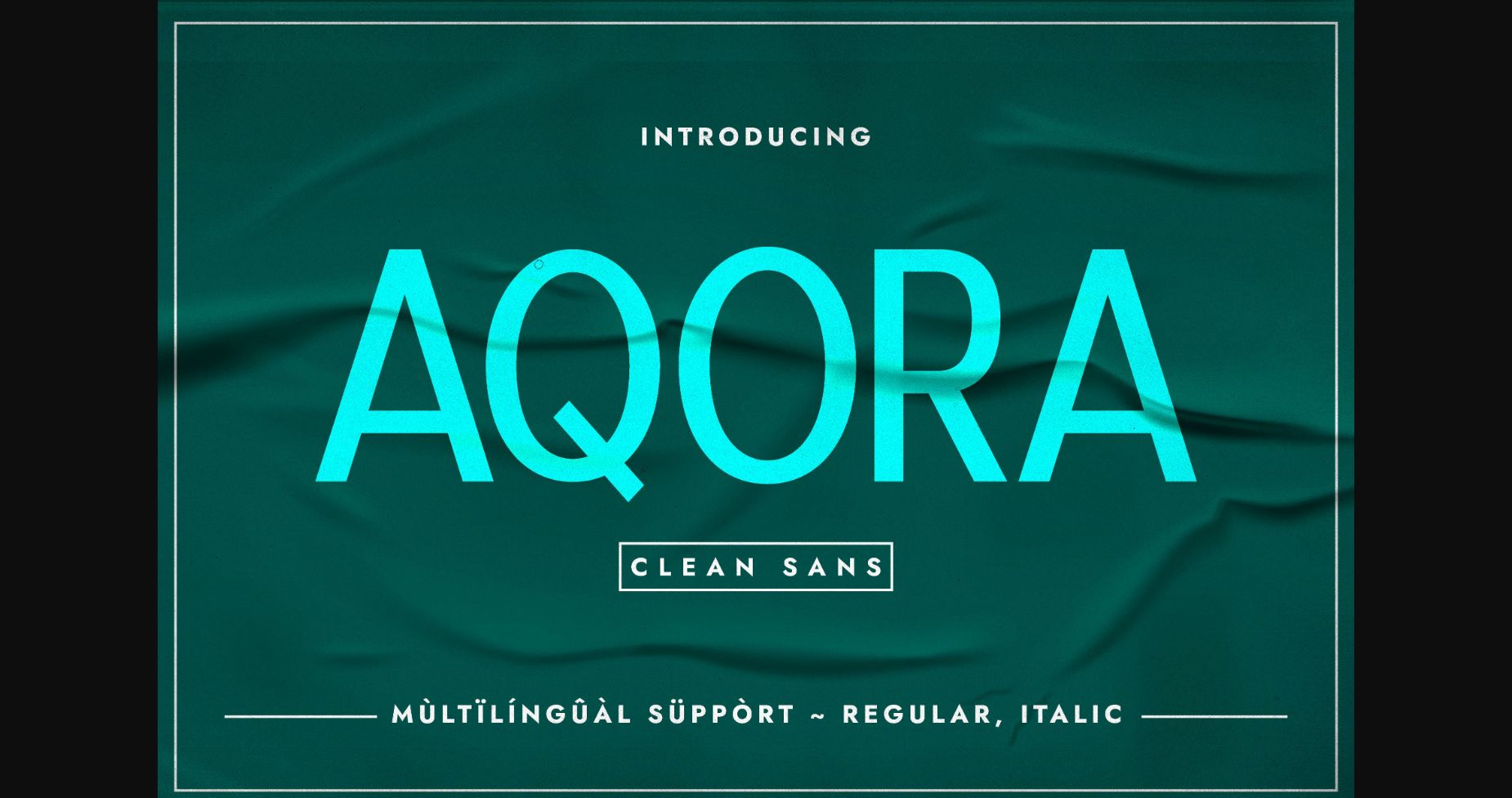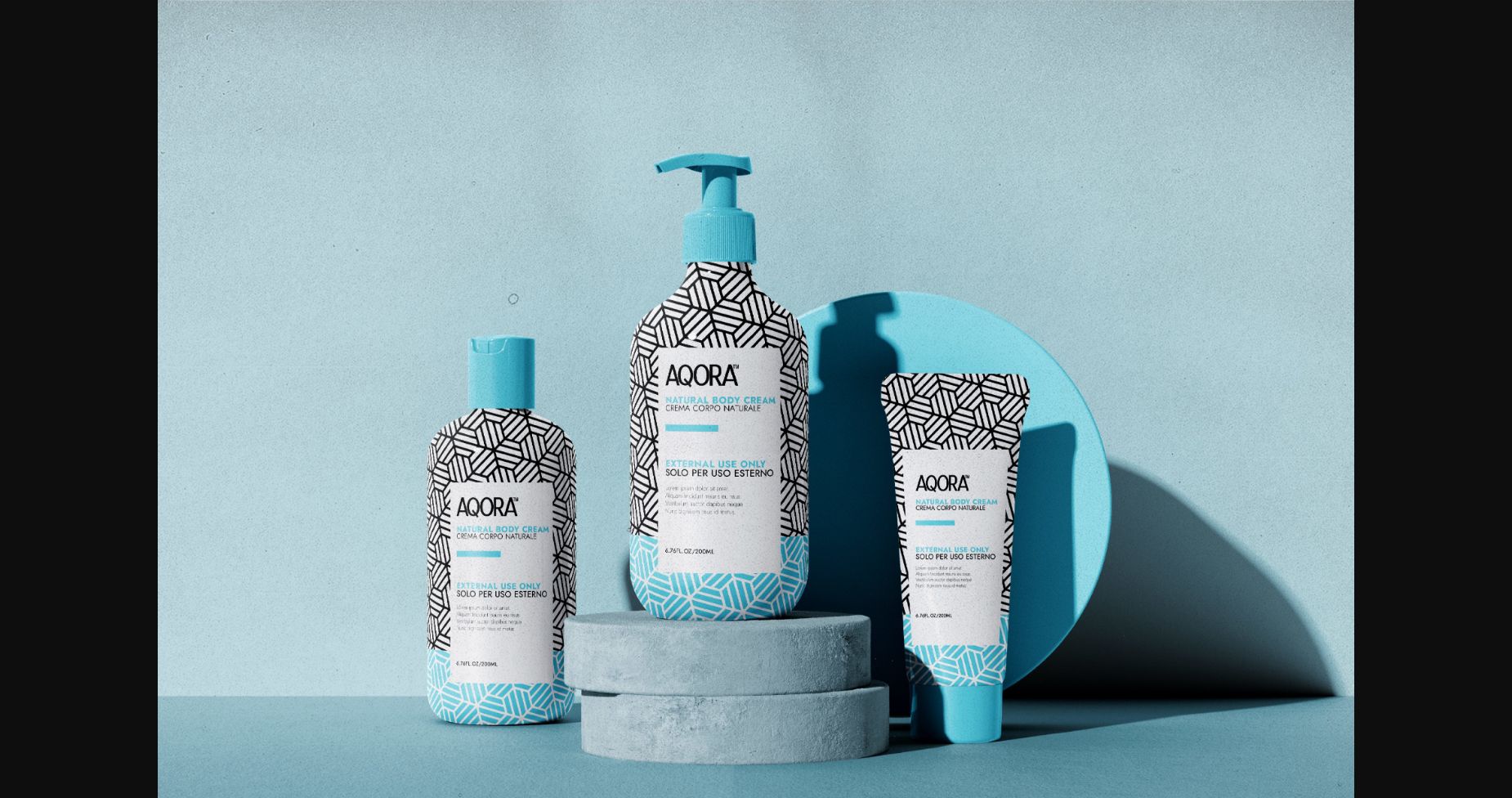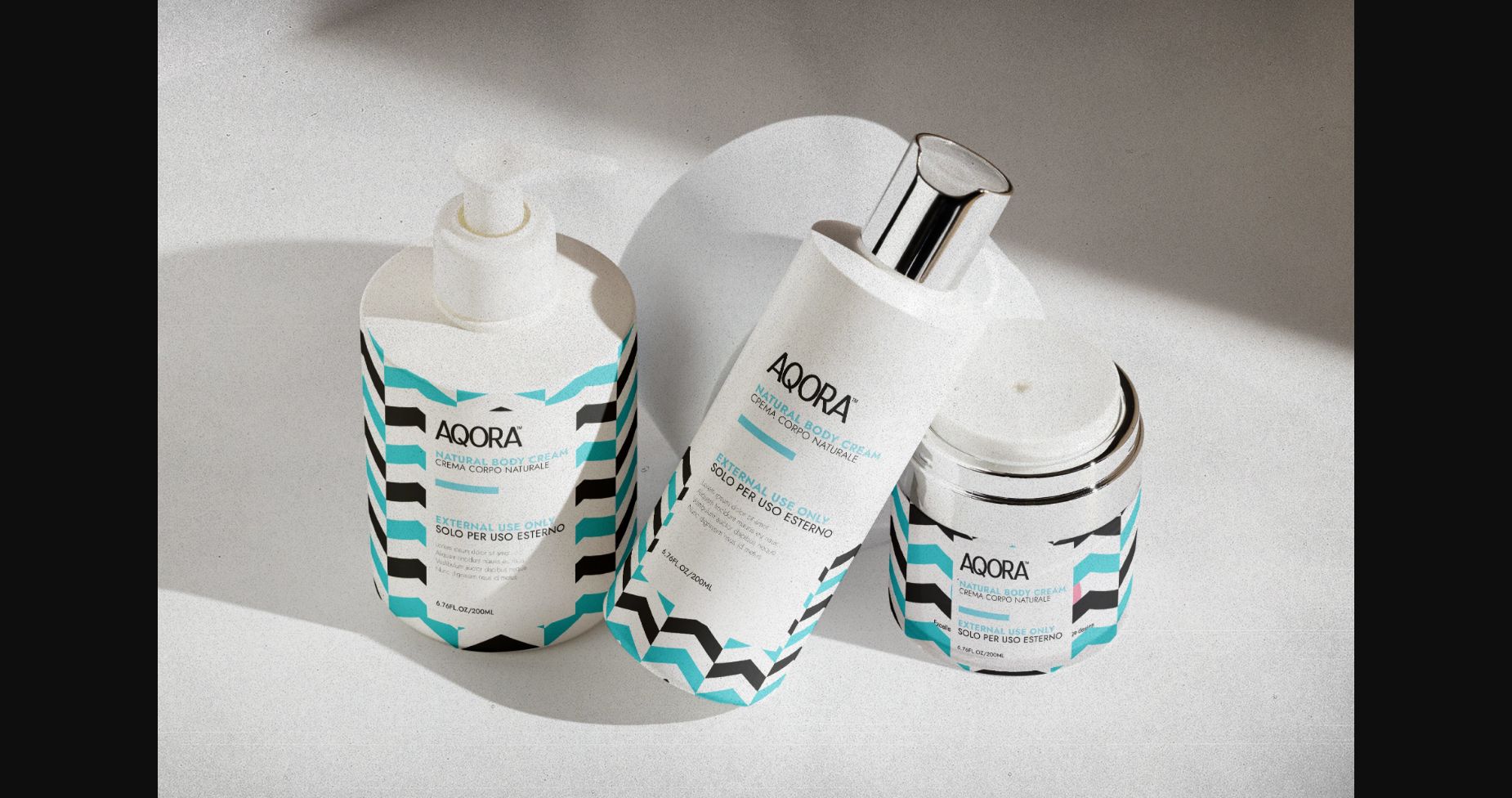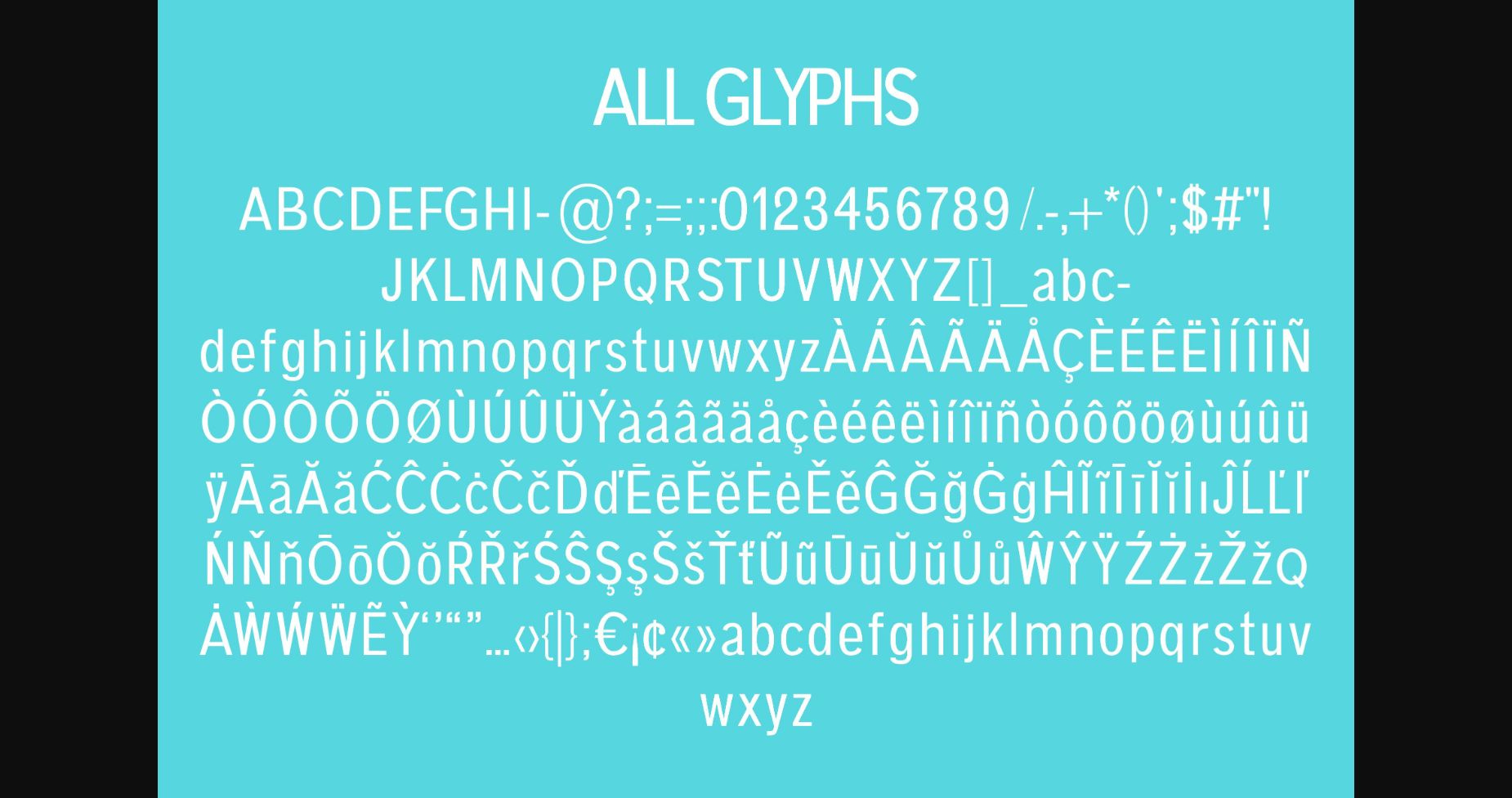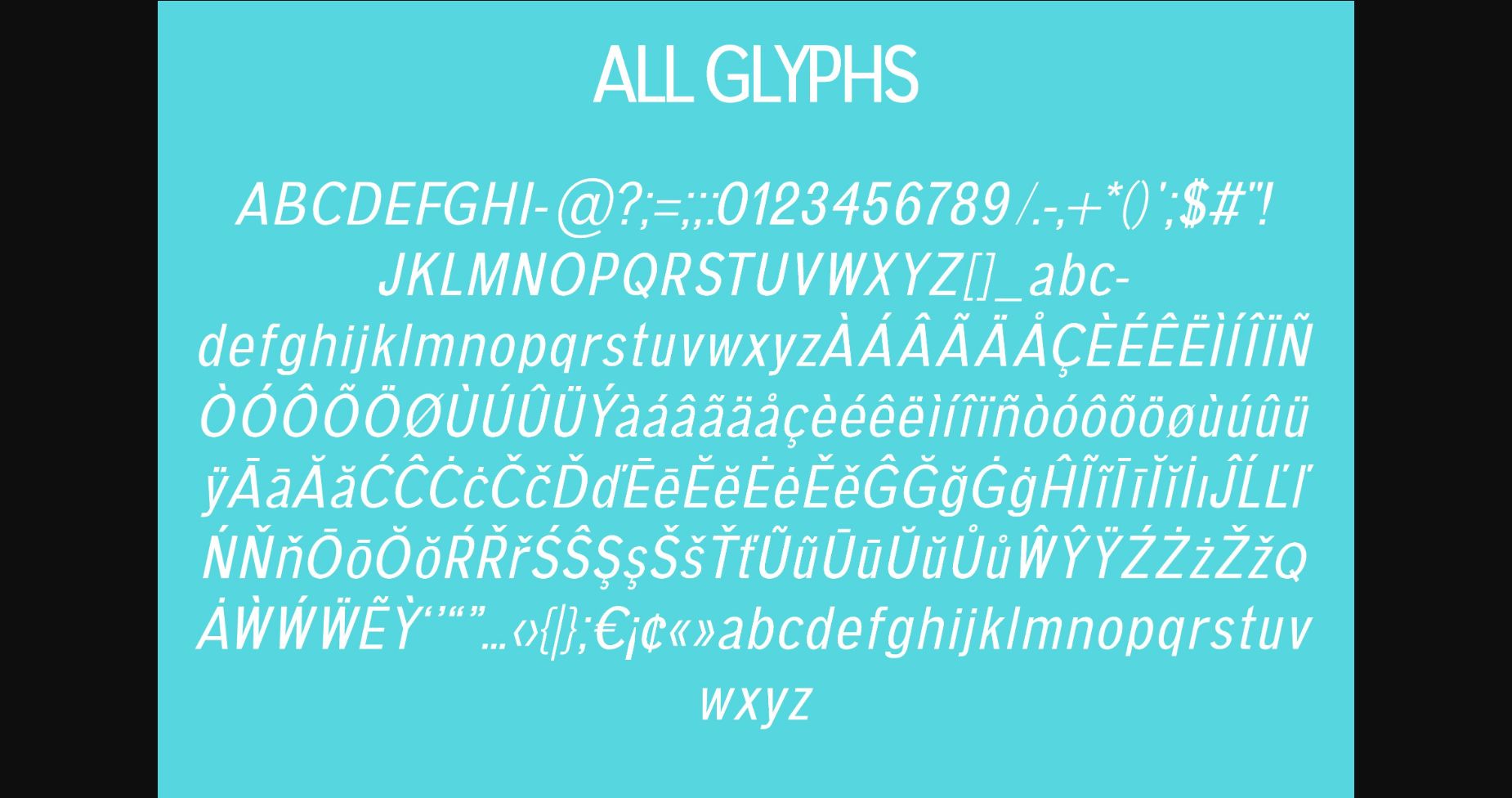
Aqora Font
About Aqora Font
Aqora is a clean, minimalist, and condensed sans serif typeface. Its versatility renders it a valid choice when you are designing various themes such as packaging design, cosmetics design, web design, book covers, posters, etc. Add confidently to your creative ideas, and notice how it makes them stand out!